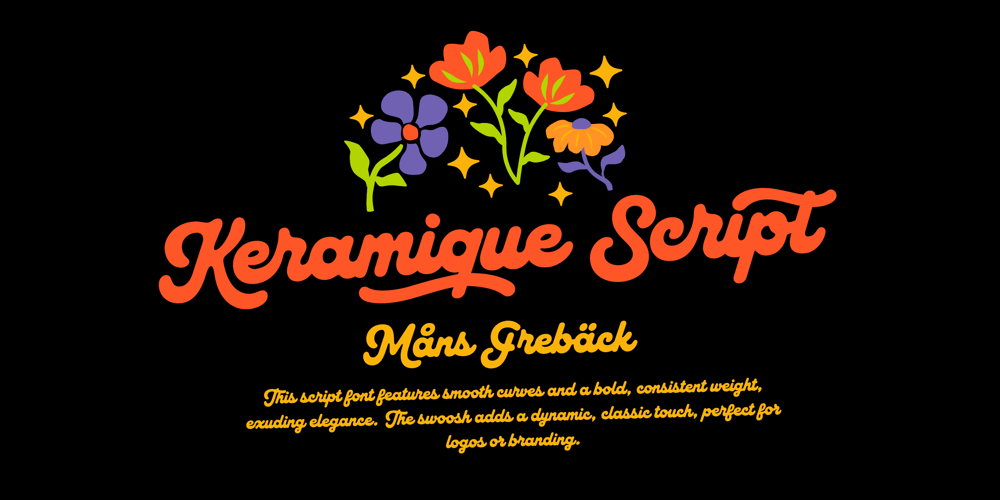
Keramique Script Font Family was designed by Måns Grebäck and published by Mans Greback. Keramique Script contains 6 styles and family package options. Keramique Script friendly cursive font, designed with a smooth feel and playful look. Its flowing lines make a wonderful lettering, perfect for titling and logotypes. Keramique Script has a solid baseline with a comfortably high x-height, providing for a bold text that’s easily read. It is perfect for logo branding, or perhaps on a menu for a diner.The font is built with advanced OpenType functionality and guaranteed top-notch quality, containing stylistic and contextual alternates, ligatures and more automatic and manual features; all to give you full control and customizability. It has extensive lingual support, covering all Latin-based languages, from North Europa to South Africa, from America to South-East Asia. It contains all characters and symbols you’ll ever need, including all punctuation and numbers. This font was made by Mans Greback with a smooth and bold expression, with the objective to craft a playful script that still maintains legibility.